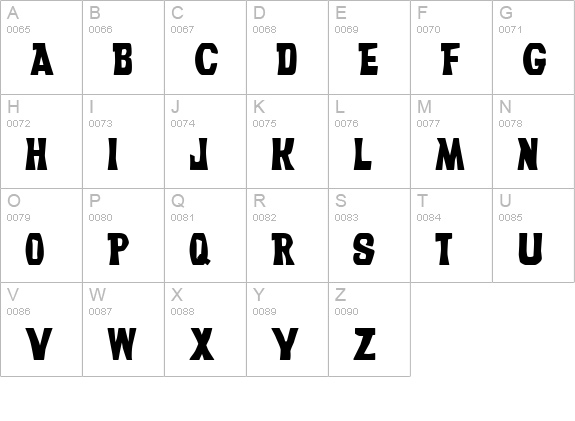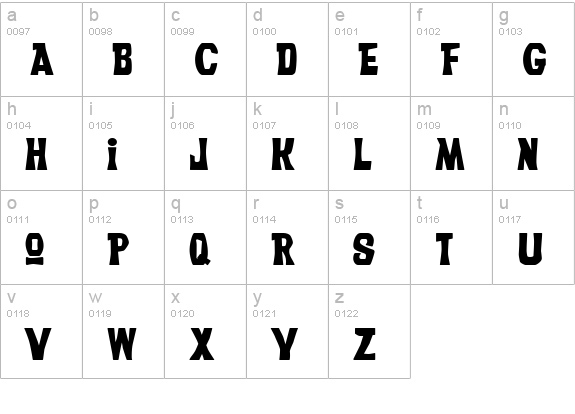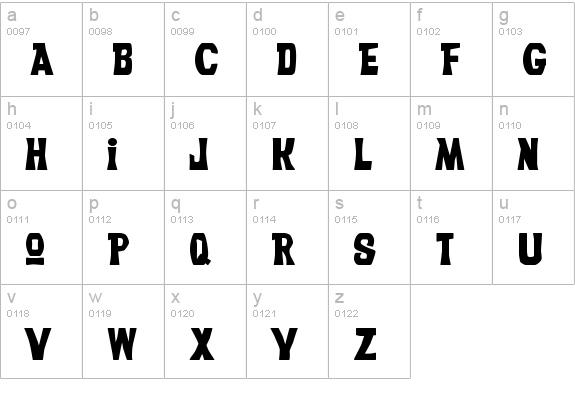
FrikiTikiJF Font Details
Introducing FrikiTikiJF font, a whimsical and playful typeface that exudes a fun and energetic vibe. This unique font features quirky characters and bold letterforms that are sure to make your designs stand out. Whether you're working on a poster, logo, or social media graphic, FrikiTikiJF is the perfect choice to add a touch of personality and charm. The best part? FrikiTikiJF font is available for free download at FontsMarket.com. Now you can unleash your creativity without breaking the bank. Don't miss out on this fantastic opportunity to elevate your projects with this delightful and eye-catching font. Download FrikiTikiJF today and let your imagination run wild!